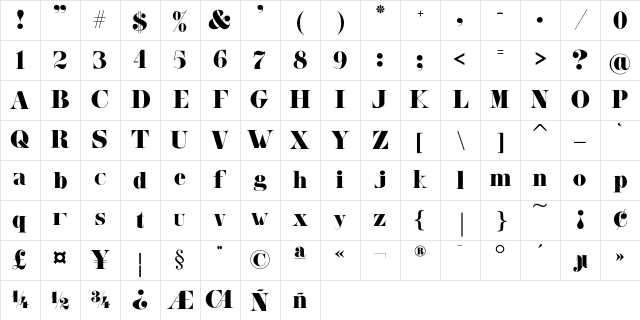
Complete Malibu Regular glyph index. Displaying only characters natively supported by Malibu Regular font.
Malibu is a composed and adaptable typeface that performs quietly and consistently across a wide range of design contexts.
Who designed the Malibu Regular font?
This font was published by Wesley Pastrana. Check the technical specs section for copyright and designer details.